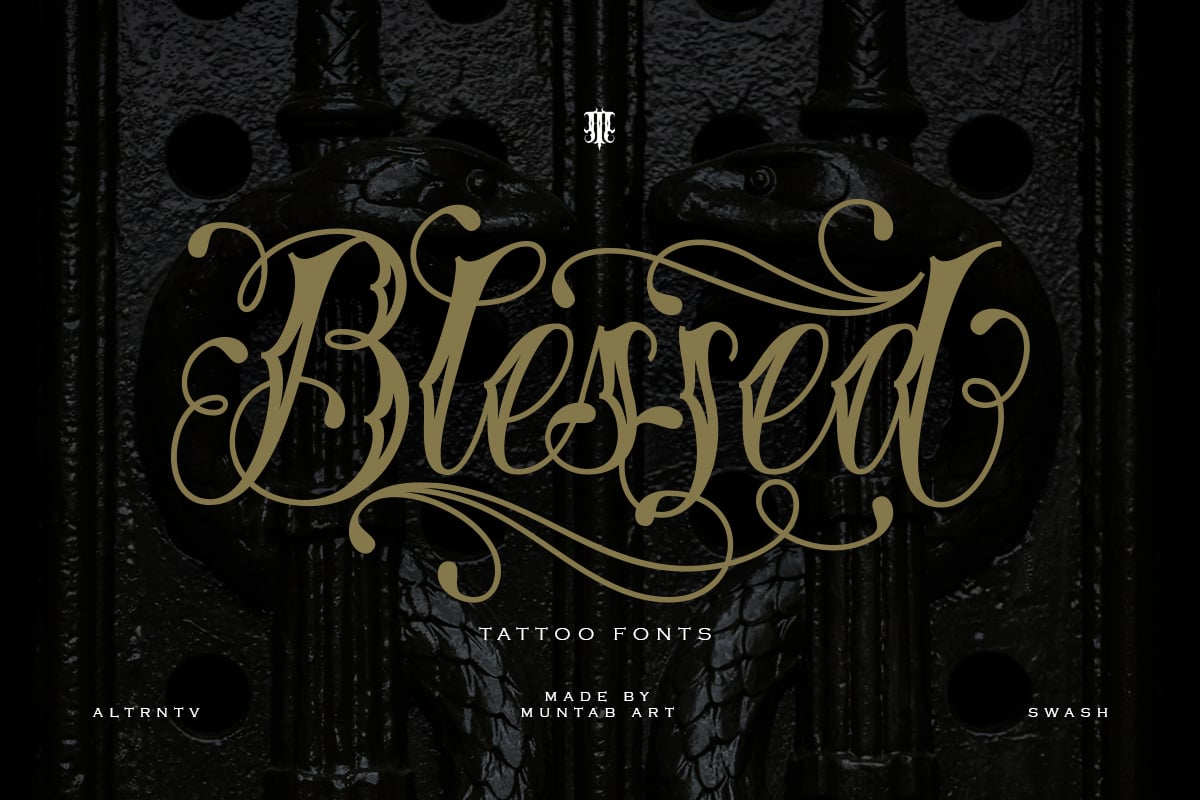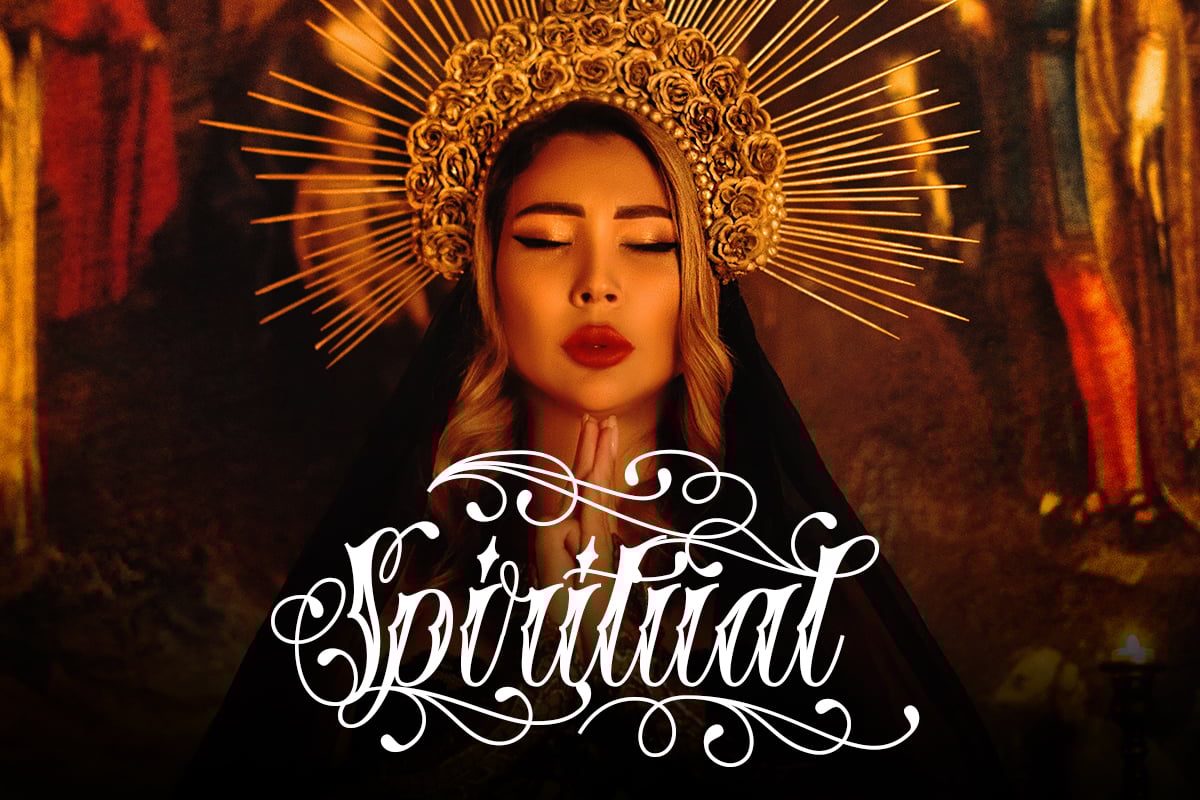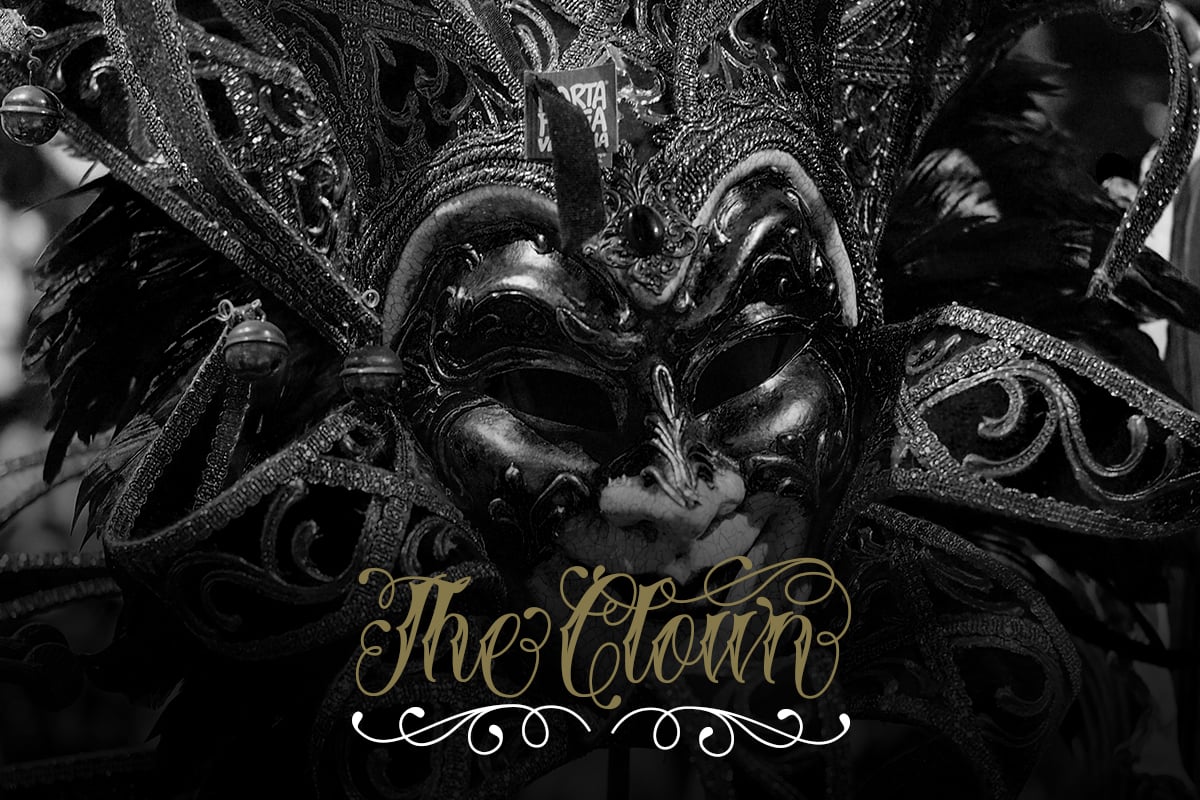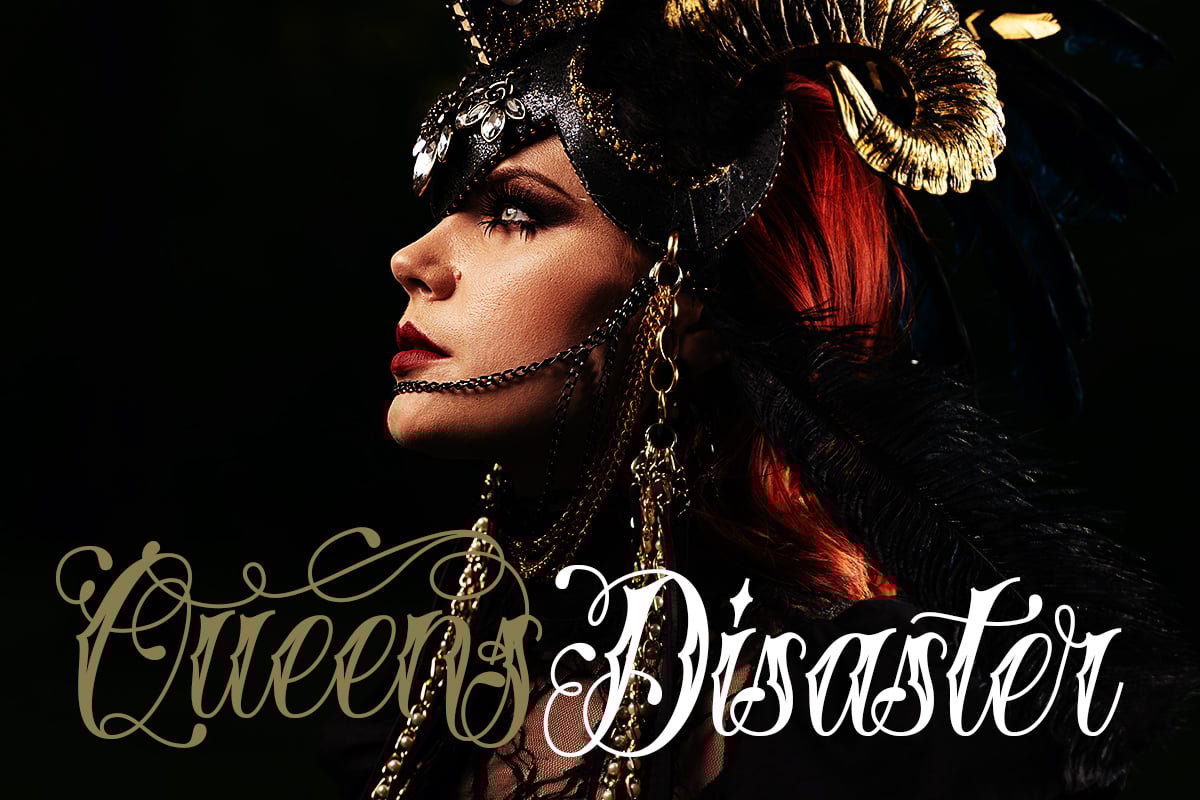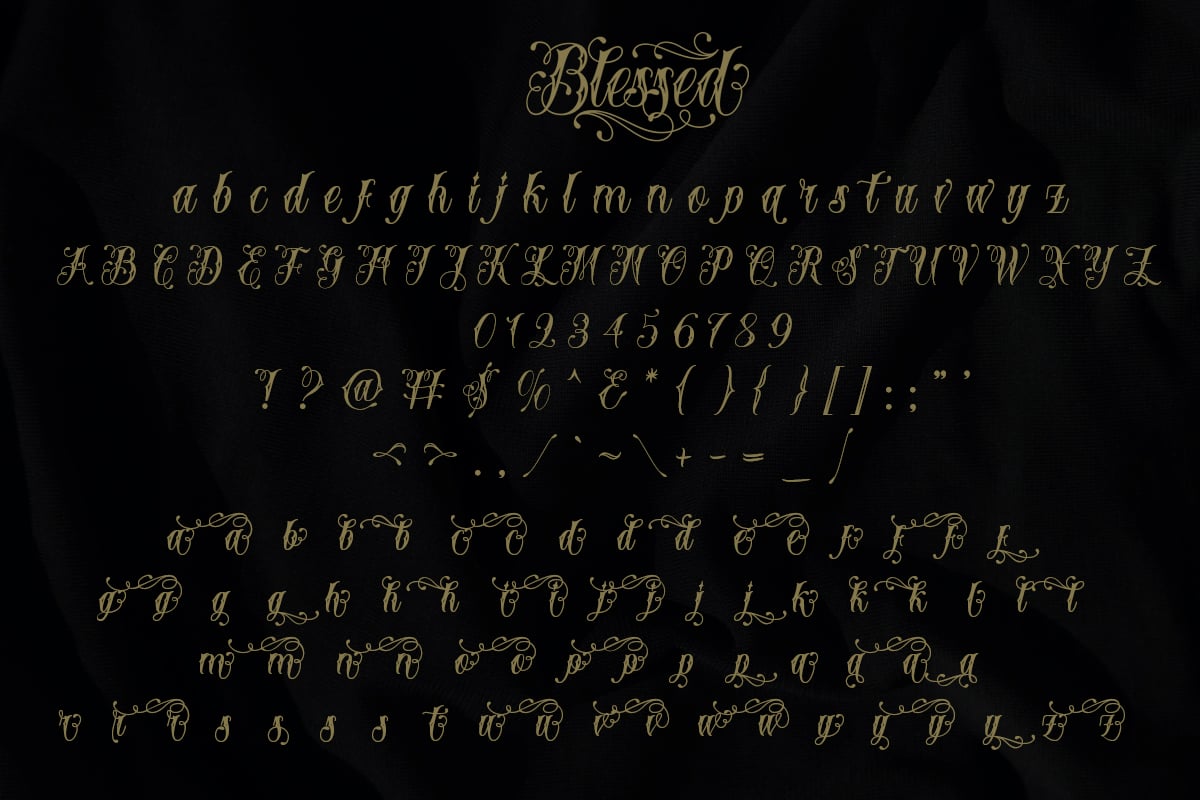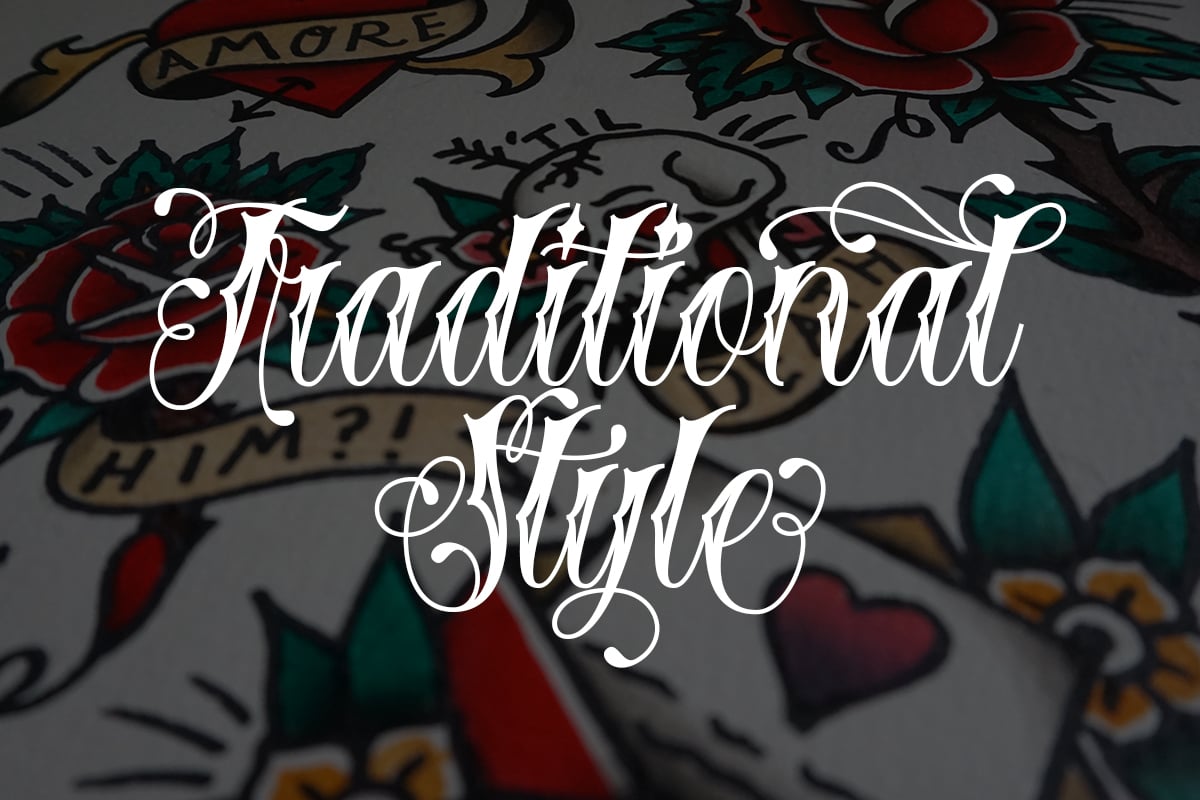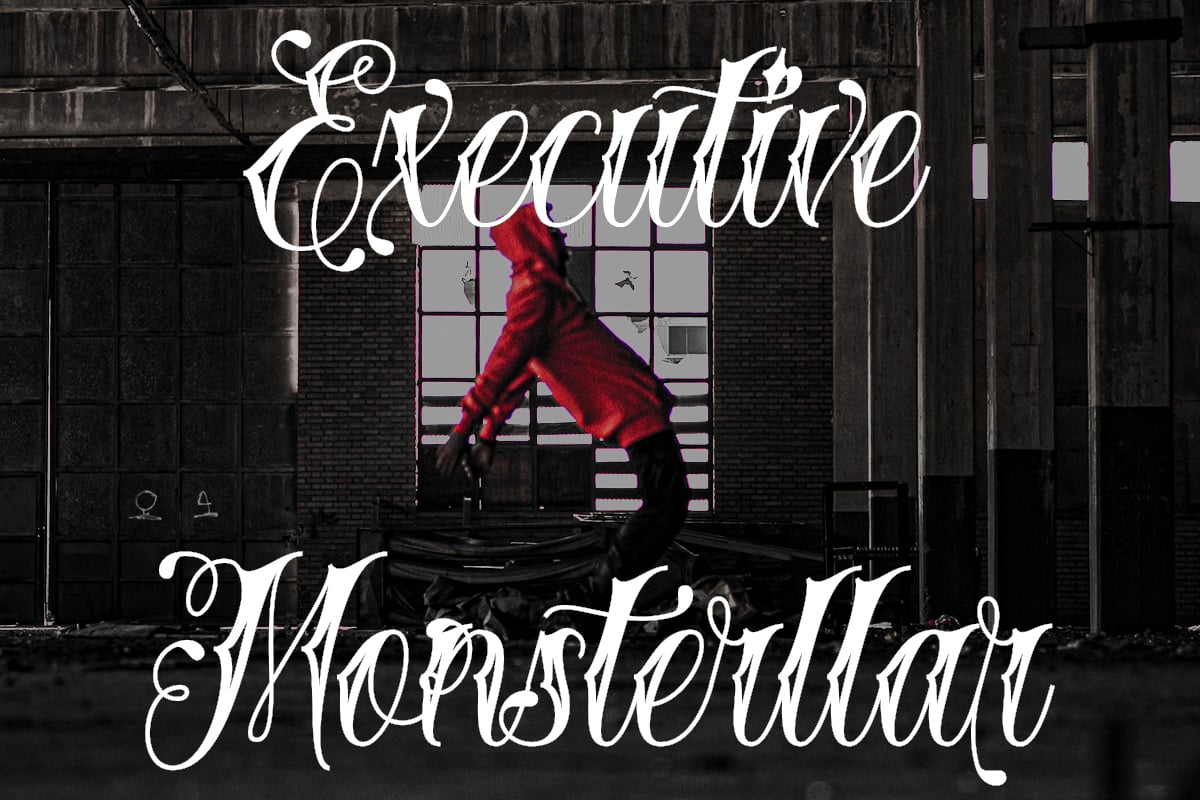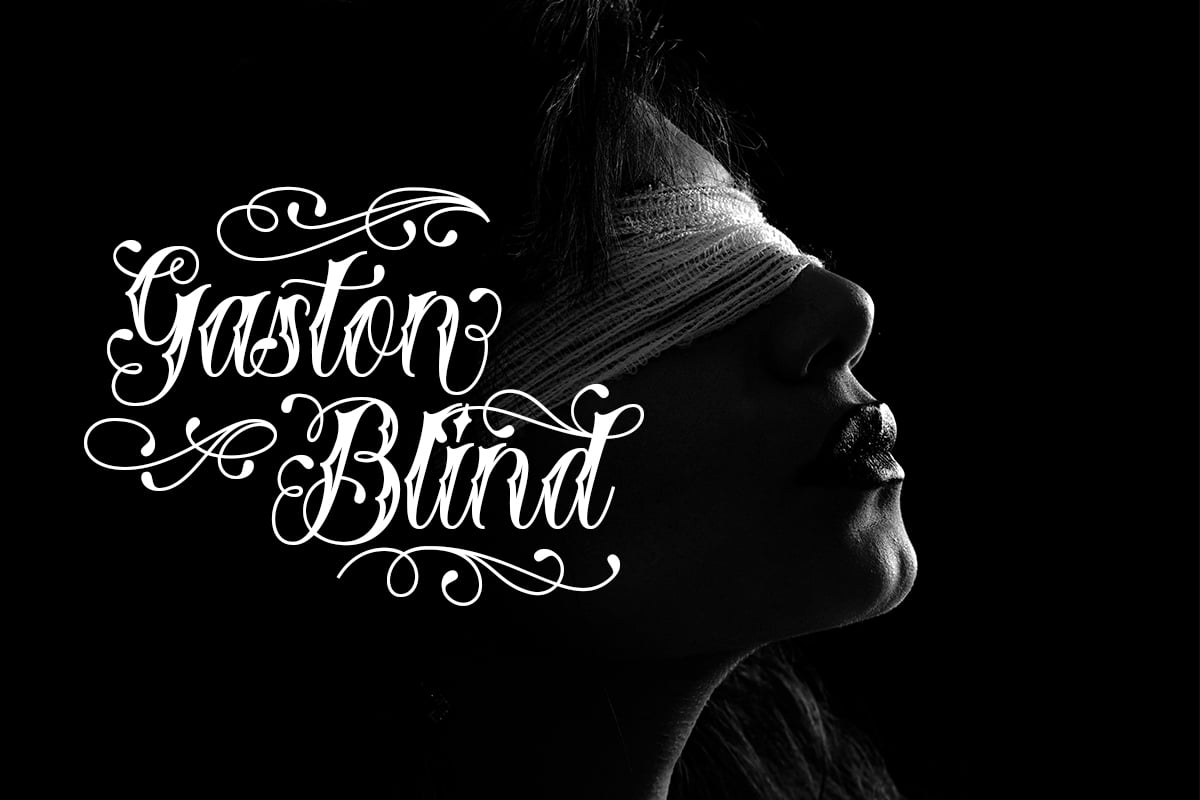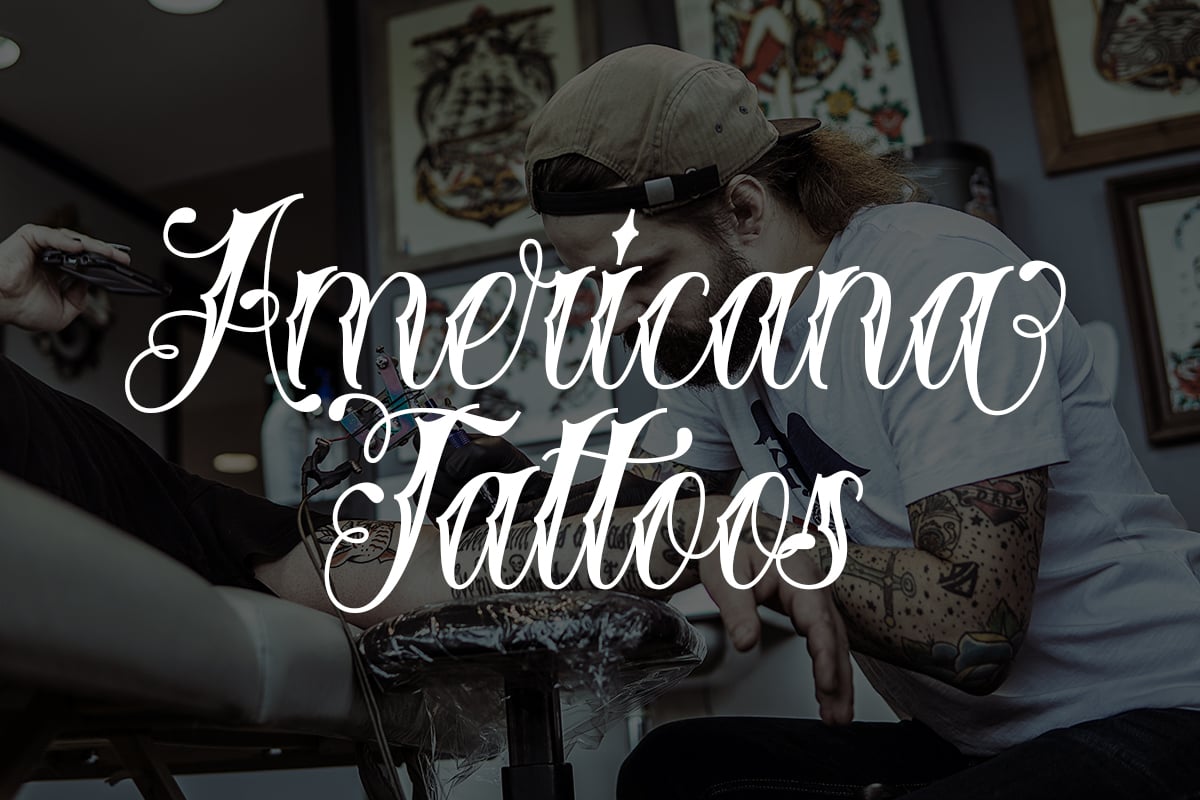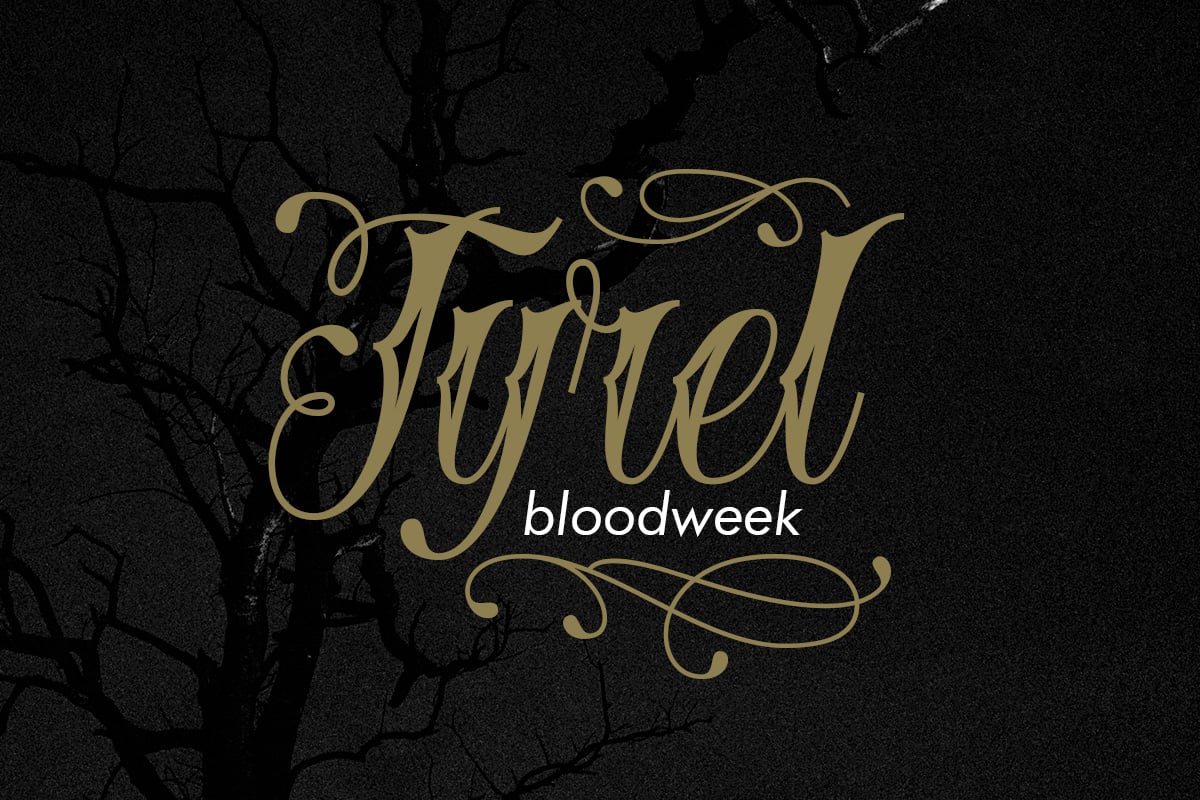
Blessed | Traditional Tattoo Fonts
Introducing our new product the name Blessed | Traditional Tattoo Fonts. Blessed fonts includes uppercase and lowercase letters, numerals, a large range of punctuation, and ligatures. All lowercase letters include ending swashes and alternative font.
FEATURES : Uppercase Lowercase Number Punctuation Multilingual Swash Opentype